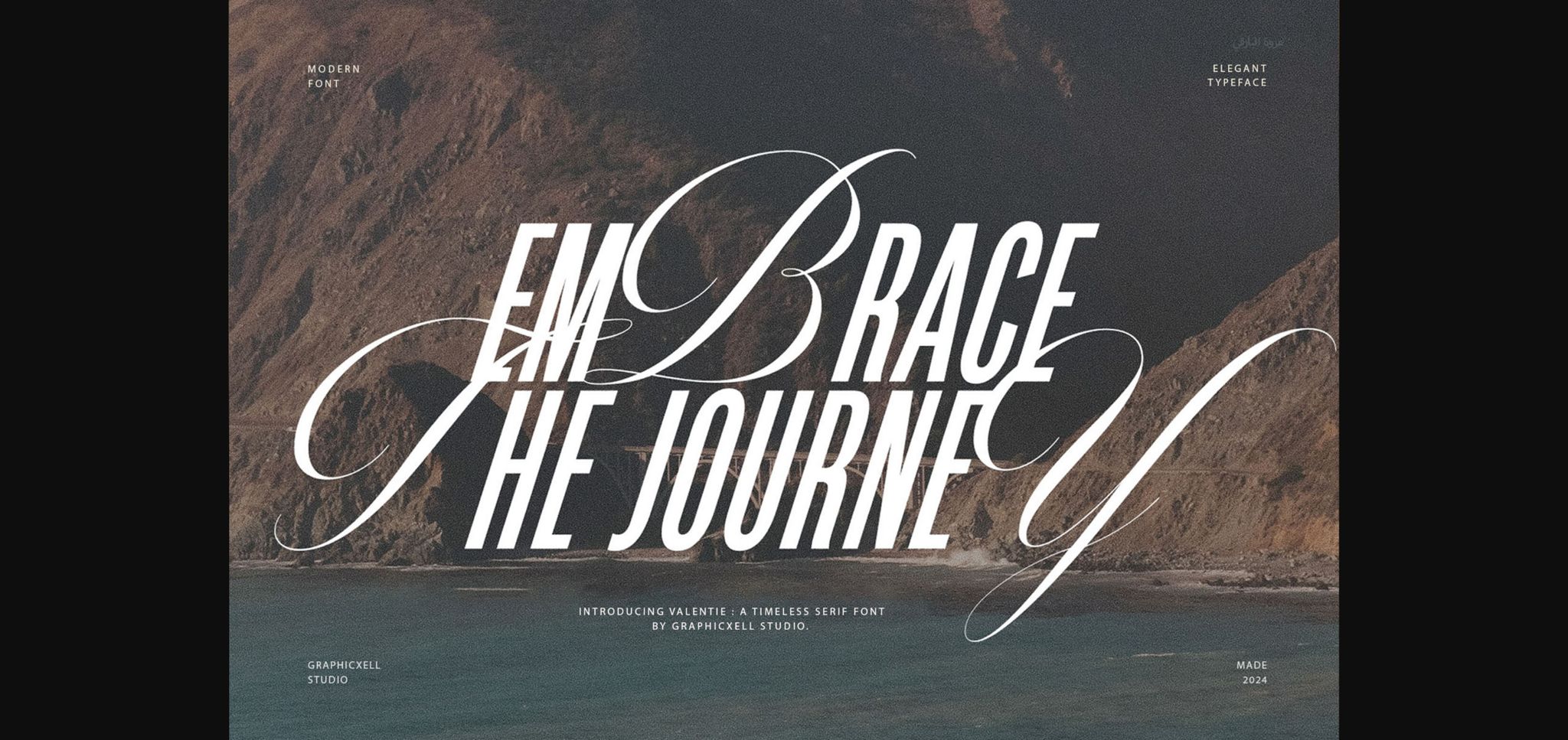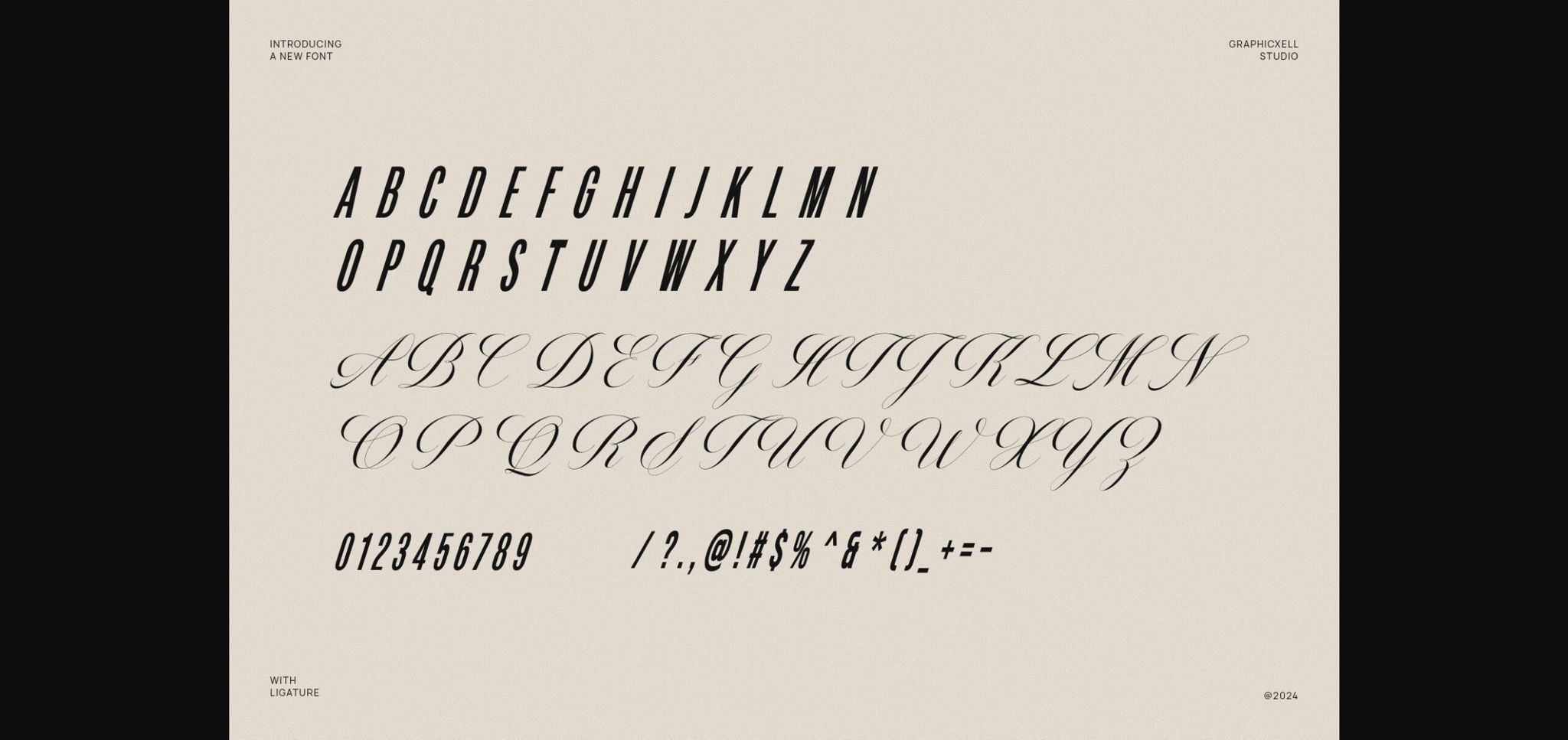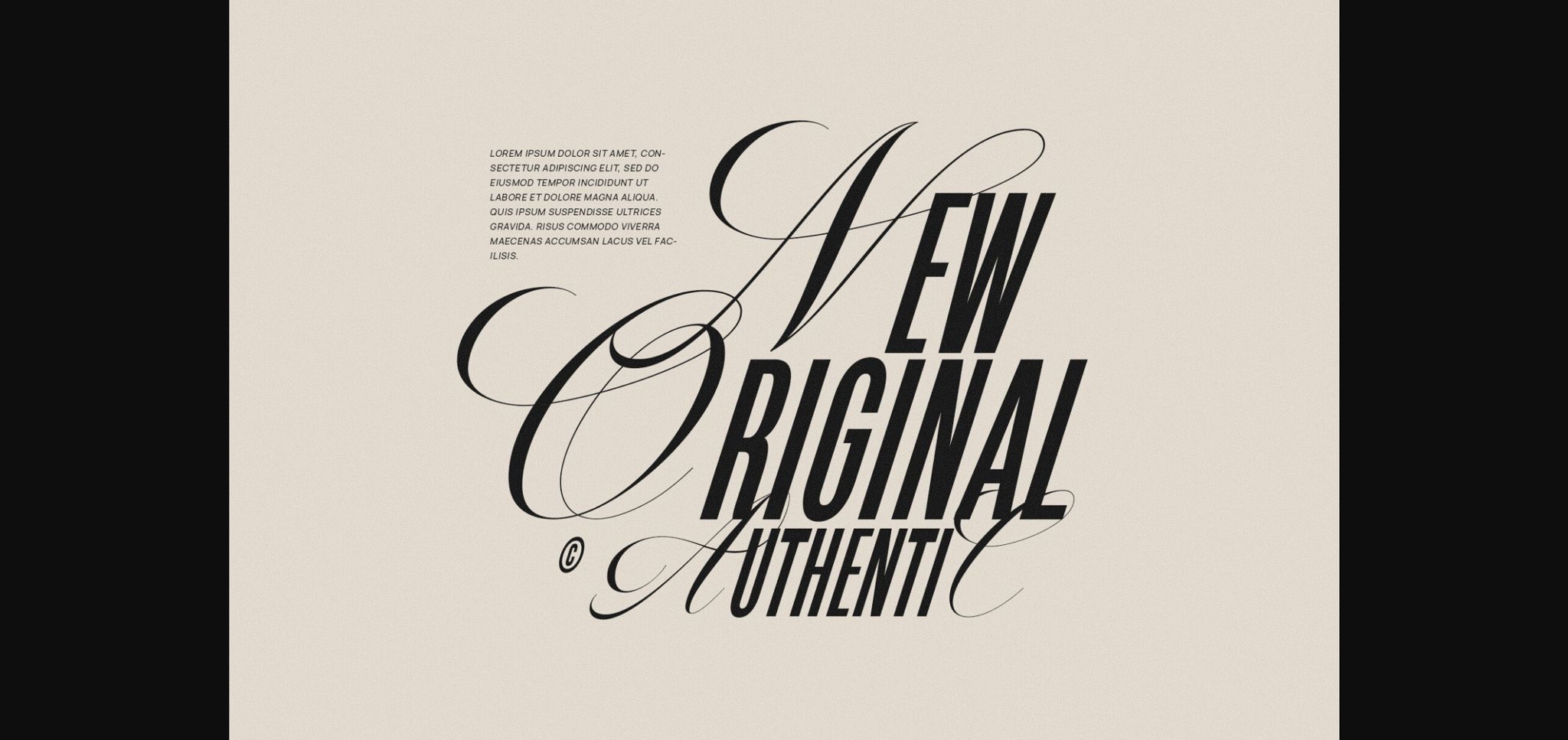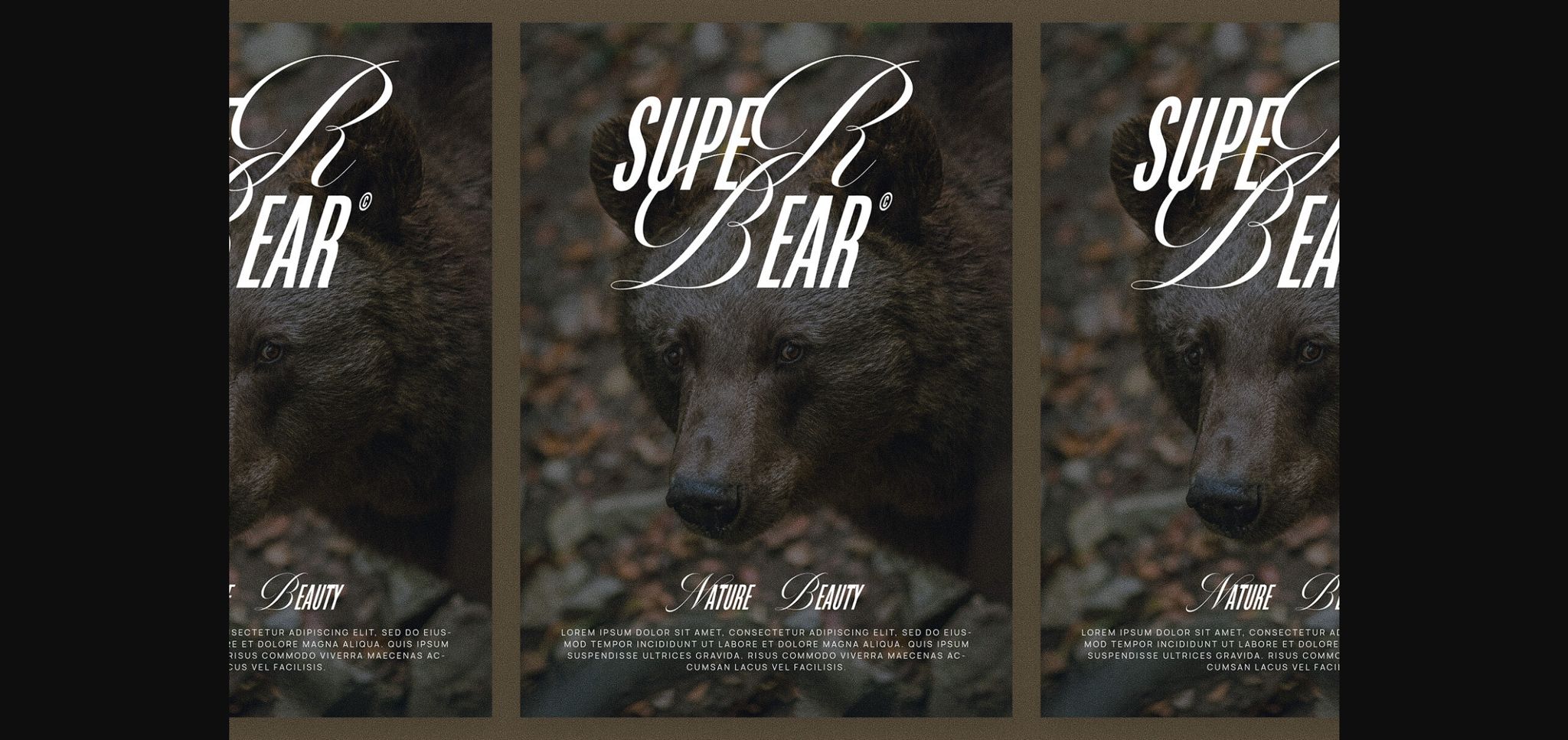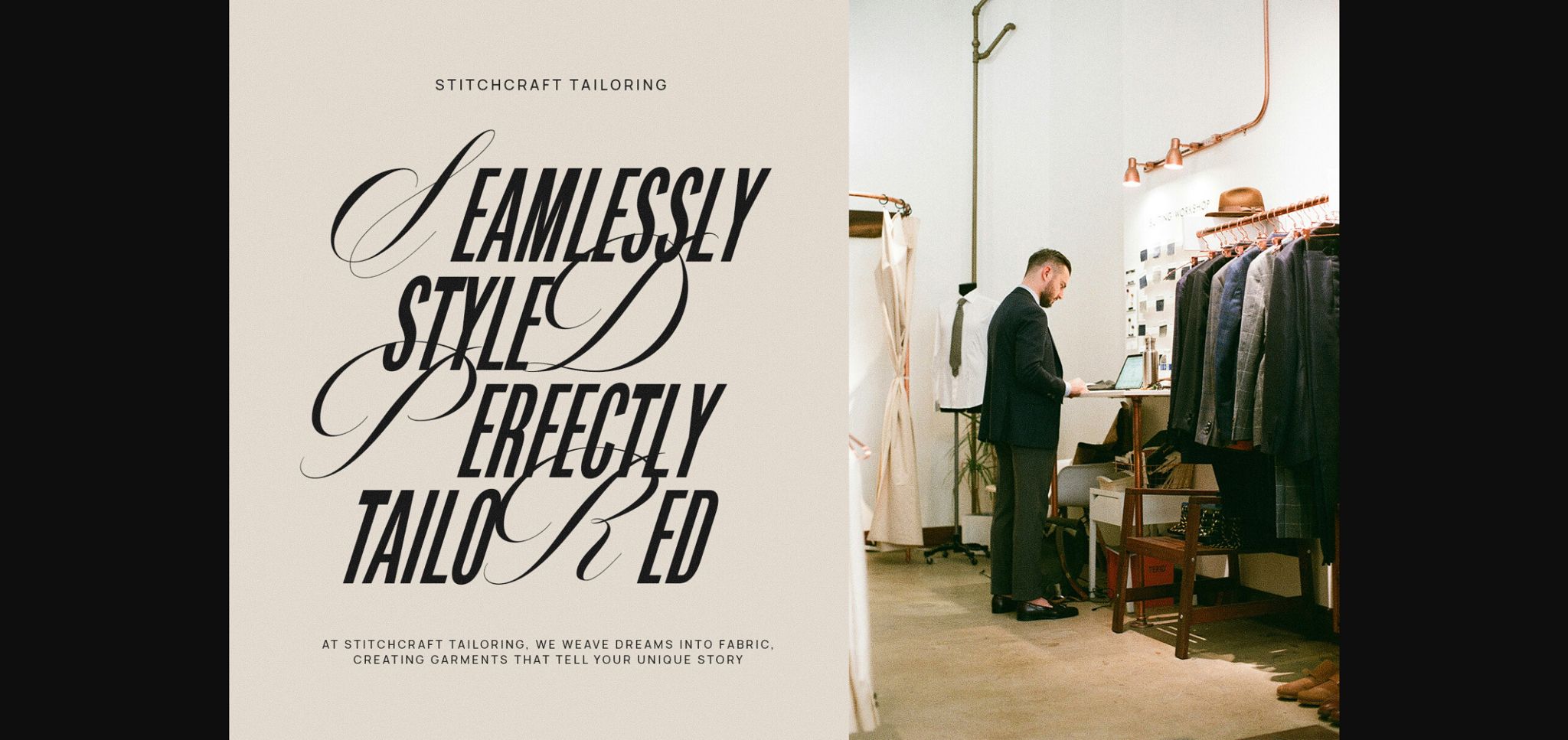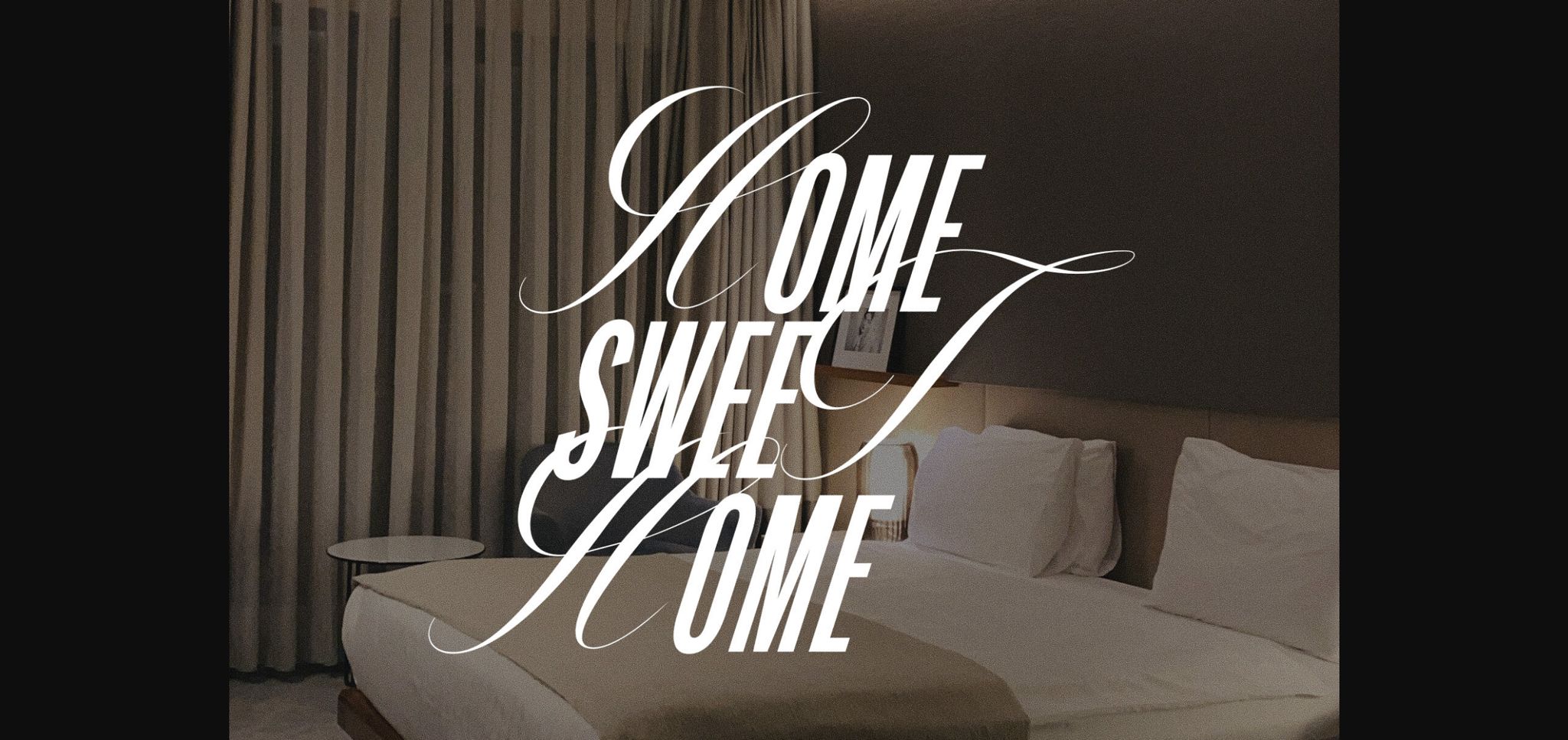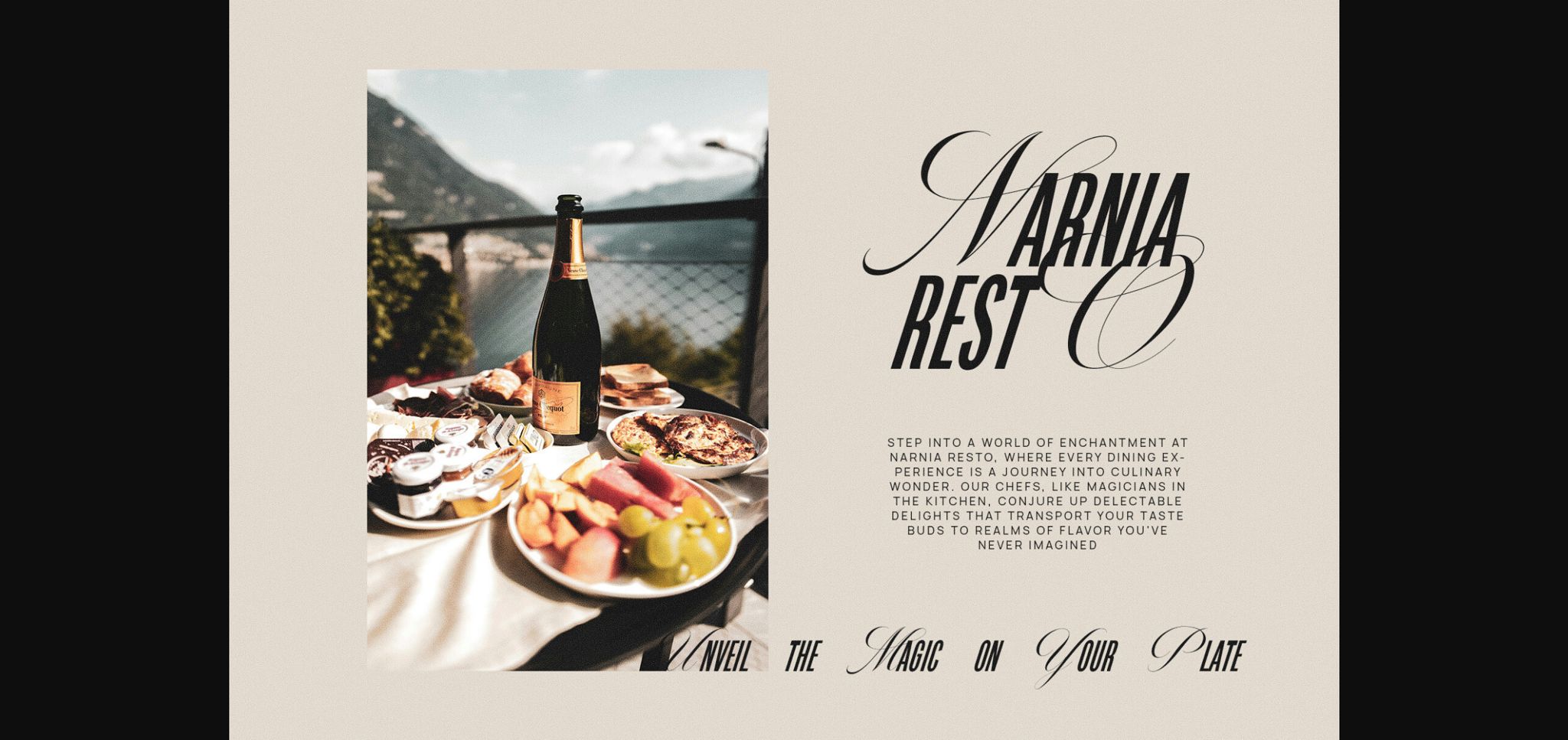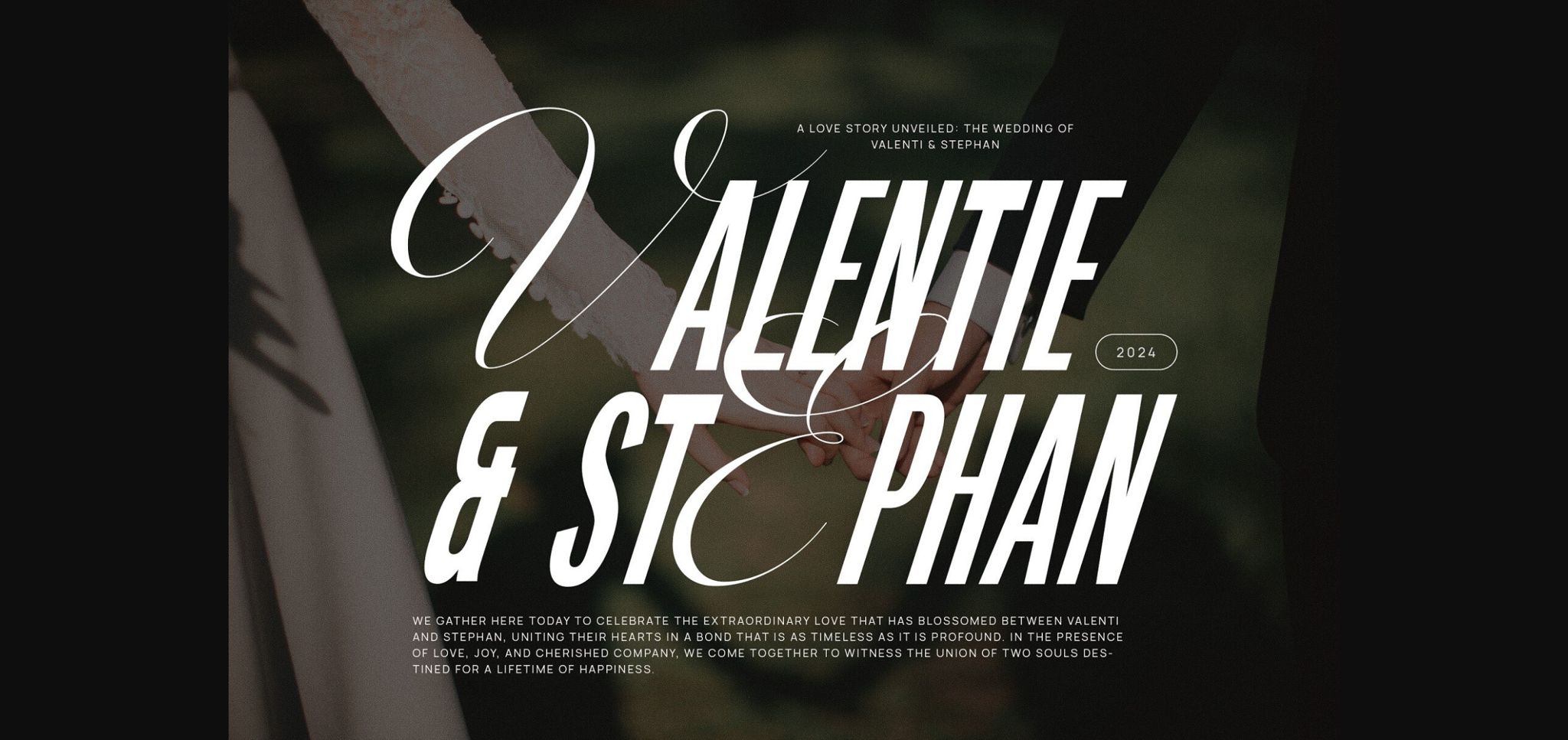
Embrace the Journey Font
About Embrace the Journey Font
Embrace the Journey is a unique blend of sophistication and trendiness. Combining a casual sans typeface with the elegance of a script font, Embrace the Journey will elevate any creation!